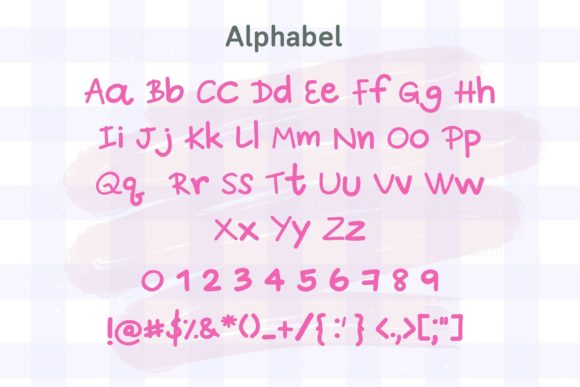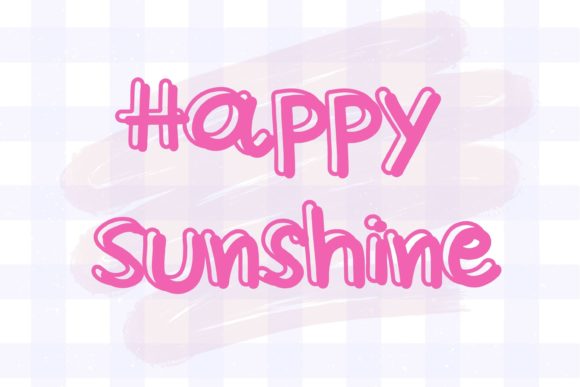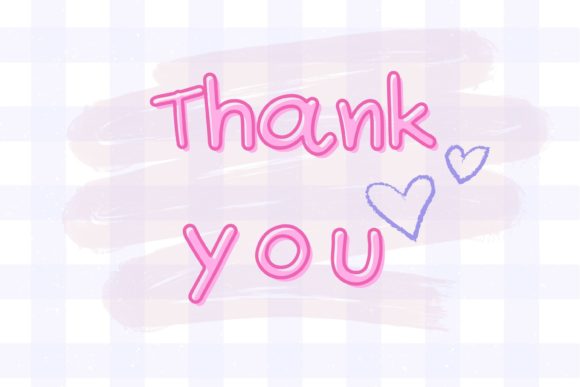
Sibling Font
About Sibling Font
Sibling is a charming and contemporary handwritten font that exudes a playful and trendy vibe. This font is versatile and well-suited for a wide range of creative projects, from social media posts to DIY crafts.
With its whimsical and youthful design, Sibling adds a touch of cuteness and uniqueness to your text. Its casual and relaxed letterforms make it an ideal choice for projects that require a friendly and approachable feel. Whether you’re creating captions for your Instagram posts, designing personalized greeting cards, or working on DIY projects, Sibling can help elevate your designs and make them stand out.
The font’s calligraphic influence lends an artistic touch to your work, allowing you to infuse a sense of creativity and handmade aesthetics into your projects. Its handwritten appearance gives your text a personal and human touch, making it more relatable and engaging for your audience.
Sibling’s adaptability makes it suitable for a variety of contexts, whether you’re designing for digital platforms, print materials, or crafts. Its inherent charm and trendy style make it a great choice for modern and visually appealing designs.
In conclusion, Sibling is a cute and trendy handwritten font that adds a touch of playfulness and creativity to your projects. Whether you’re using it for Instagram posts, DIY crafts, or any other creative endeavor, Sibling is sure to bring a delightful and engaging element to your designs.